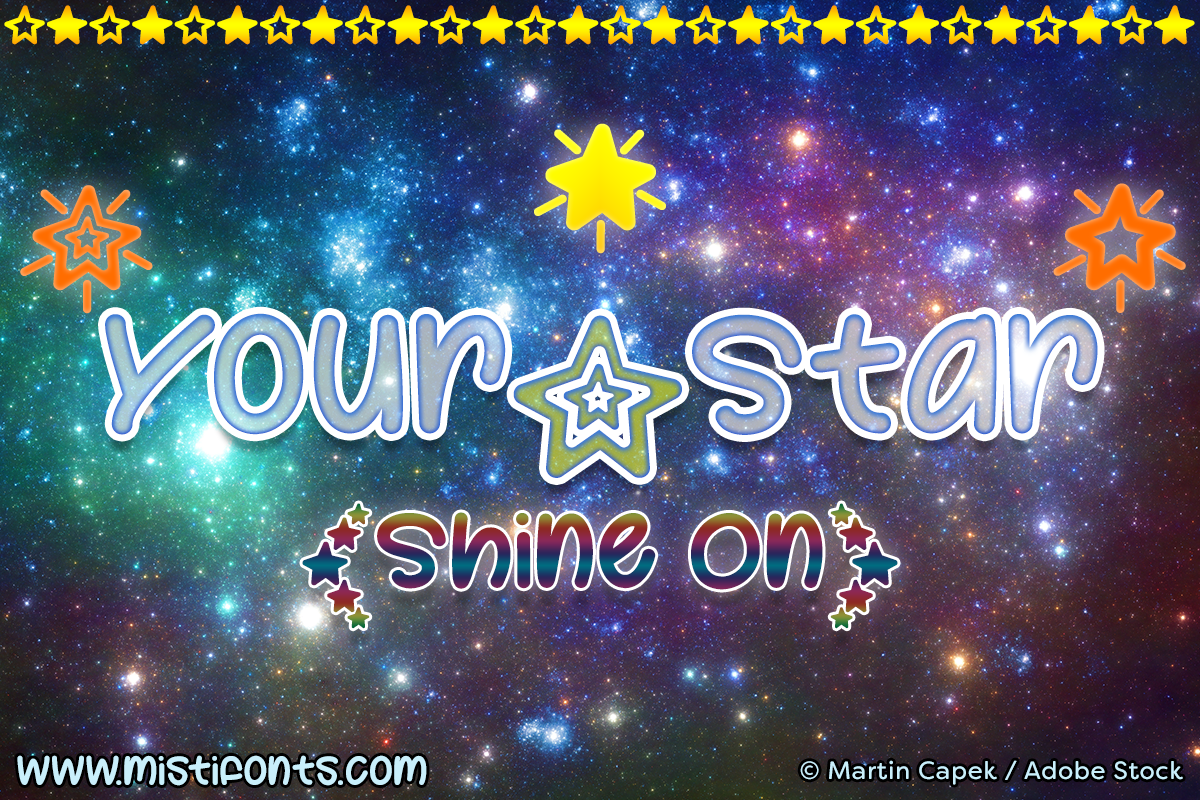
Your Star is a starstrucking, uni-case font that is great for a variety of projects!
SPECIAL SYMBOLS
Type * (asterisk) for the open star
Type | (vertical bar) for the solid star
Type (backslash) for the fancy star
Type _ (underscore) for the shining open star
Type ^ (circumflex) for the shining solid star
Type ~ (tilde) for the shining fancy star
Type {} (curly braces) for the star clusters